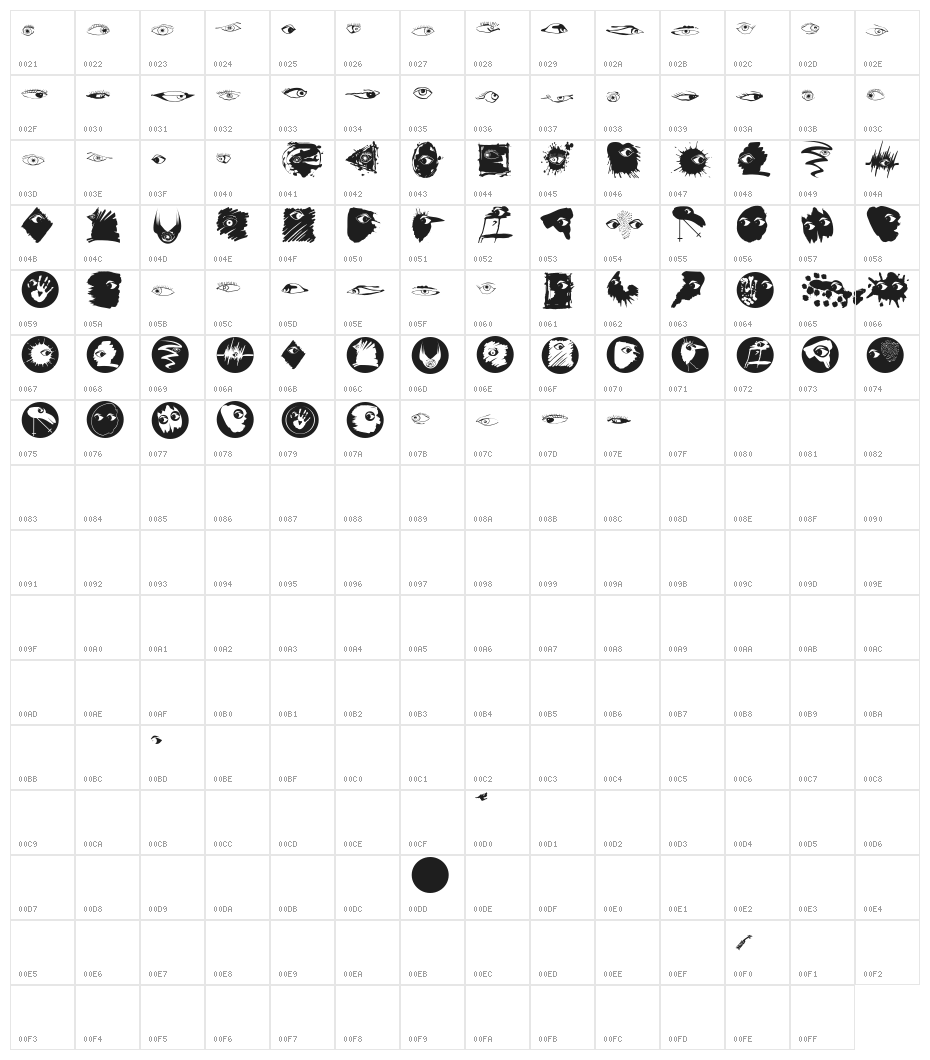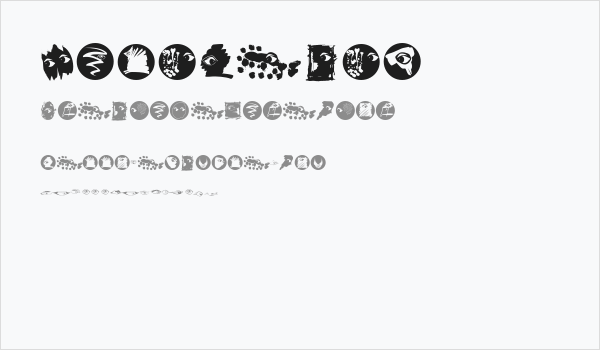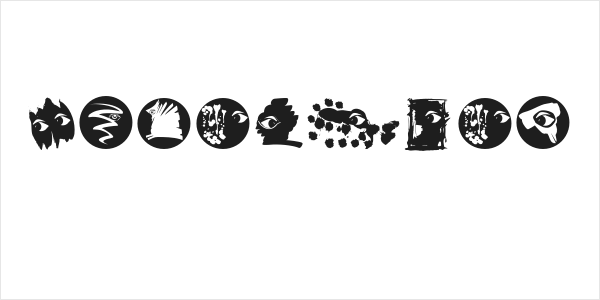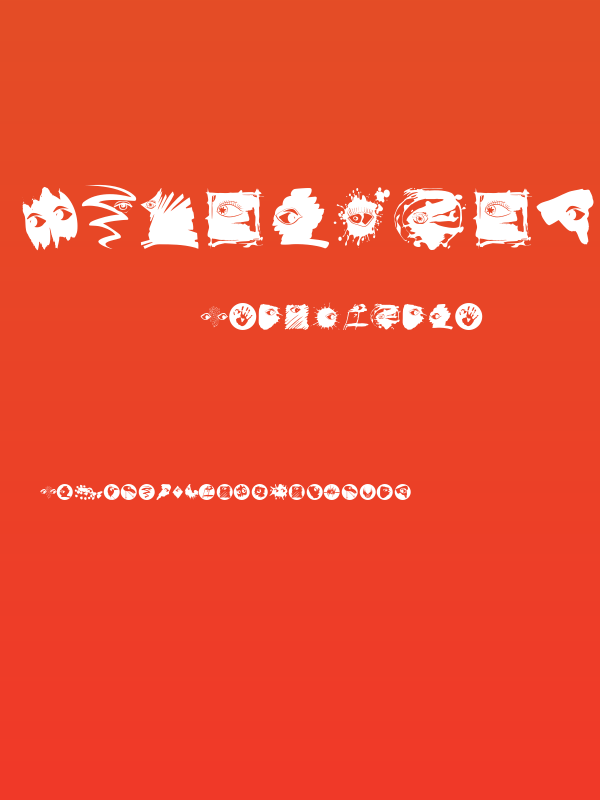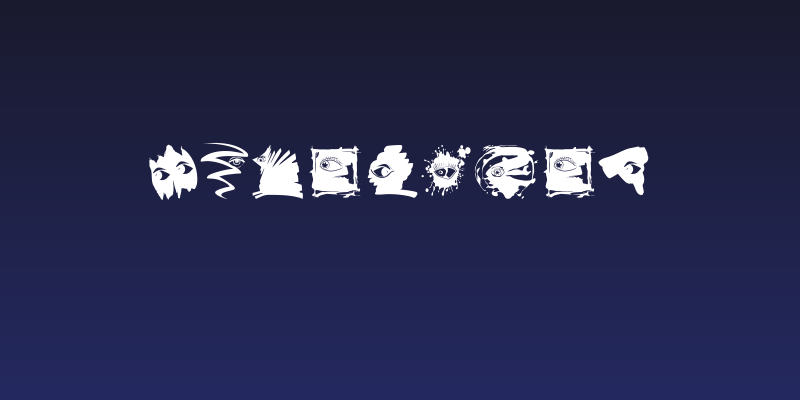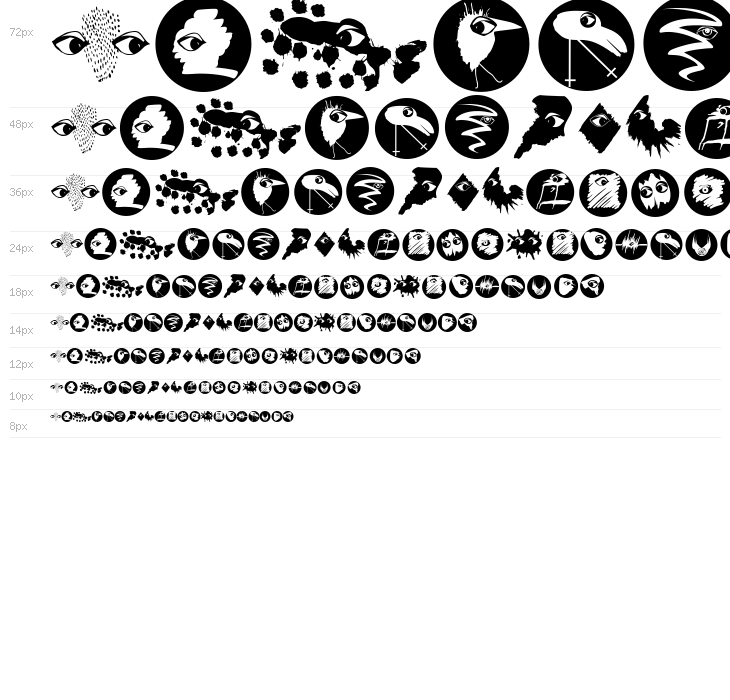
WildHeads Font
WildHeads Description
A highly decorative and illustrative font composed of abstract, surreal, and expressive eye and head motifs, each glyph uniquely rendered with bold, hand-drawn strokes and varying levels of detail, often enclosed in shapes or circles, giving a wild, artistic, and experimental appearance.
| Overall Style | Decorative, Surreal, Artistic, Experimental |
| Use Case | Logos, Headlines, Posters, Artistic projects |
| Proposed Projects | Album covers, poster art, zines, alternative comics, creative branding, event flyers, experimental design projects. |